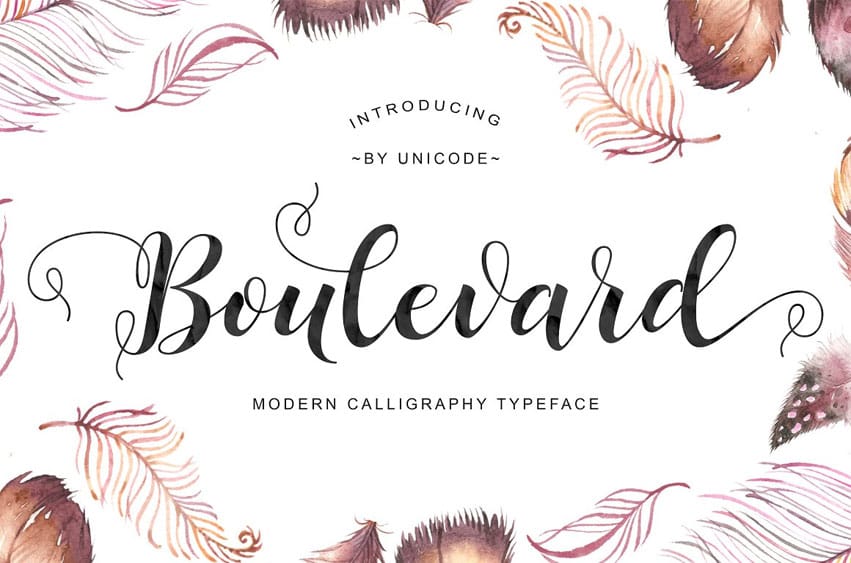
Boulevard Script Font is a fresh, modern script that has a handmade calligraphic style. It features decorative characters and lot’s of alternates.
It’s the perfect font for creating invites, cards and even decorative business materials. It features 450 unique glyphs.